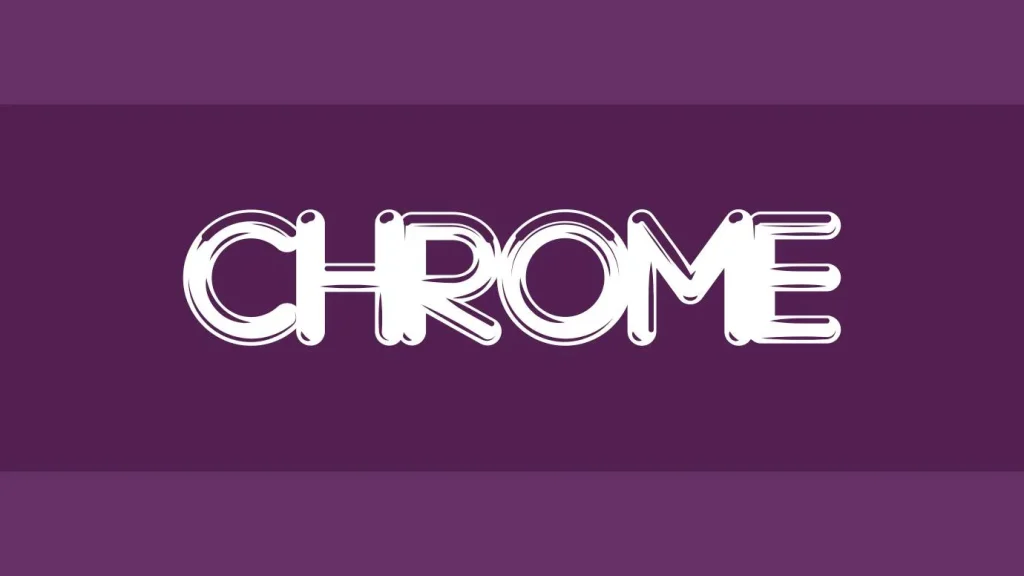
Chrome Font is designed by Artem Sukhinin. A lovely typeface with over a hundred characters, including punctuation, numerals, icons, and uppercase letters. It supported OTF and TTF Format. You can use this typeface to make your projects attractive with its unique style.
There are several ways in which you can utilize its advanced features for official purposes. If you want to pair this typeface with cascadia font, it would be a great combination. With it, you will get the best results for both your clients’ projects and your own.
Because of its stylish glyphs, it is perfect for a wide range of designs. As well as being perfect for use in food design and naming, this font is also suitable for use in logos. The font is very popular among designers and is used for web development and design.
What Are the Qualities of Chrome Font?
Advantages of Using Chrome Font
Many designers use this typeface since it is supported by a variety of languages. Utilizing this typeface will enhance the appearance of your designs. Use this typeface to create attractive headlines and titles. Try this attractive typeface for menus, assignments, quotes, and presentations.
This typeface is best compared to the High Destiny script typeface. For thumbnail designs, theme designs, and other design projects, this stunning typeface is often selected by designers.
This attractive typeface has bold strokes that are perfect for elegant logo designs, posters, banners, etc. Aside from brochure layouts, it is also suitable for product designs, label designs, banner designs, clothes designs, etc.
Can I use Chrome Font for logo designs?
Logos for YouTube channels, Instagram accounts, business websites, and shipping websites are best created using this font.